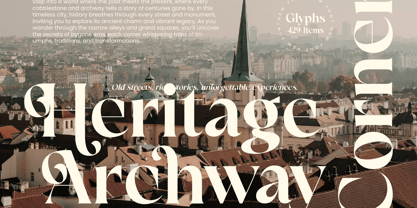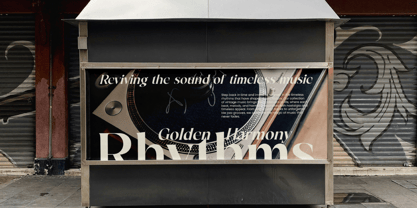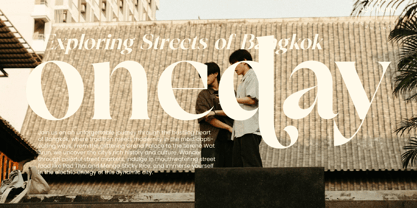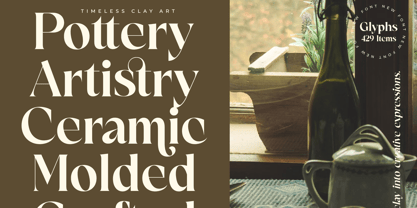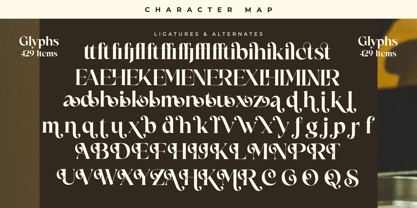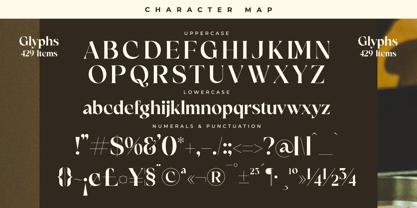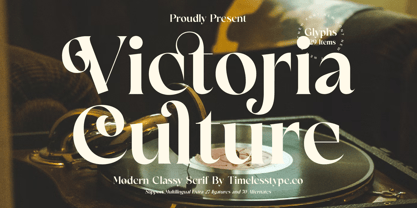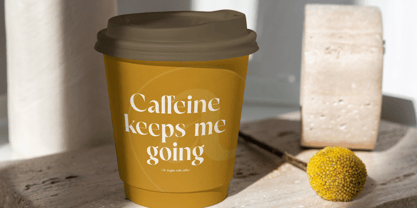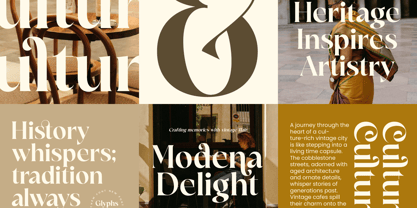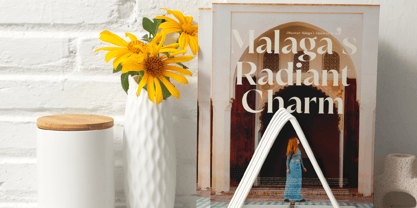
Victoria Culture
The Victoria Culture Font Family was designed by Heru Utama Putra and published by Timelesstype Studio. Victoria Culture contains 2 styles and family package options. More about this family
Victoria Culture - Modern Classy Serif , from Timelesstype, Suitable for any projects such as: logos, branding projects, homeware designs, product packaging, mugs, quotes, posters, shopping bags, t-shirts, book covers, name card, invitation cards, greeting cards, label, photography, watermark, special events, and all your other luxury and beautiful projects that need a Luxury Serif taste.